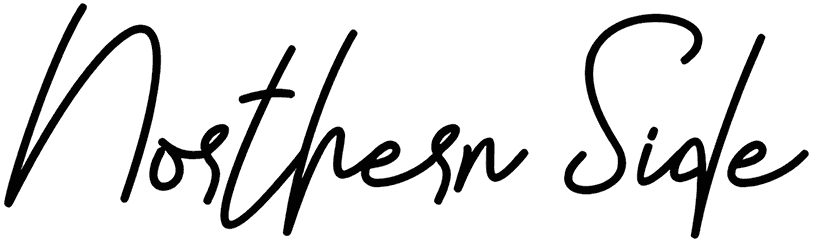
Northern Side Font
If you want to make your creative ideas look more interesting to the audience, we have a special offer, such as Northern Side, for you. Due to its delicate and elongated characters, this script font can instill a sense of momentum, softness, and drama in the audience’s minds.